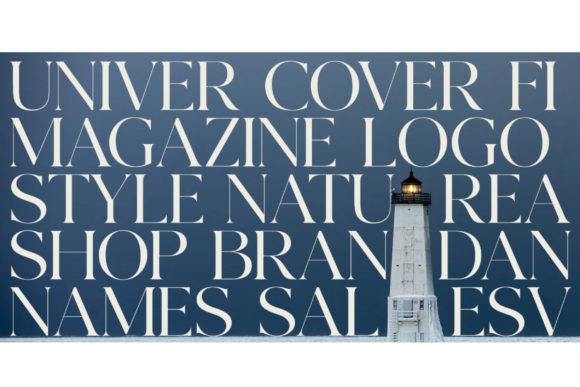
Introducing Agatho Font: The Epitome of Elegance and Sophistication
In the realm of typography, fonts play a pivotal role in conveying messages, evoking emotions, and creating a lasting impression. Among the myriad of fonts available, Agatho Font stands out as a beacon of elegance, sophistication, and versatility. This stunning serif font has been meticulously crafted to cater to a wide range of applications, making it an indispensable asset for designers, artists, and businesses alike.
The Agatho Font: A Symphony of Elegance and Refinement
Agatho Font is a cool, elegant, and thin lettered serif font that exudes refinement and poise. Its slender lines, precise curves, and carefully balanced proportions create a harmonious visual experience that is both soothing and captivating. The font’s elegant appearance makes it an ideal choice for projects that demand a touch of sophistication, such as luxury brand logos, high-end wedding invitations, and upscale signage.
Unleashing the Potential of Agatho Font: Diverse Applications
One of the standout features of Agatho Font is its incredible versatility. Its adaptability makes it suitable for a wide range of applications, including:
- Logos: Create a lasting impression with a bespoke logo that embodies your brand’s values and personality.
- Wedding Invitations: Set the tone for a fairytale-like celebration with exquisite wedding invitations that exude romance and sophistication.
- Headings: Elevate your content with elegant headings that command attention and inspire engagement.
- T-Shirts: Design striking apparel that makes a statement with Agatho Font’s stylish and legible lettering.
- Letterhead: Impress clients and partners with professional letterhead that reflects your brand’s commitment to excellence.
- Signage: Guide, inform, and engage your audience with eye-catching signage that showcases your brand’s personality.
- Labels: Add a touch of elegance to your products, packaging, or marketing materials with stylish labels.
- News: Present news articles, blog posts, or editorials with a font that conveys authority, credibility, and sophistication.
- Posters: Create visually stunning posters that capture attention, convey messages, and leave a lasting impact.
- Badges: Design custom badges that showcase your brand’s identity, values, or achievements with Agatho Font’s distinctive style.
The Benefits of Using Agatho Font
Agatho Font offers numerous benefits that make it an attractive choice for designers, businesses, and individuals:
- Unique Identity: Agatho Font helps create a distinctive visual identity that sets your brand or project apart from the competition.
- Elegance and Sophistication: The font’s refined appearance adds a touch of luxury and sophistication to any project.
- Versatility: Agatho Font’s adaptability makes it suitable for a wide range of applications, from digital media to print materials.
- Legibility: The font’s clear and precise lettering ensures excellent legibility, even at smaller font sizes.
- Customization: Agatho Font can be easily customized to suit your specific needs, ensuring a perfect fit for your project.
Tips for Using Agatho Font Effectively
To maximize the impact of Agatho Font, consider the following tips:
- Pair with Complementary Fonts: Combine Agatho Font with complementary fonts to create a harmonious visual experience.
- Choose Suitable Colors: Select colors that enhance the font’s elegance and sophistication, such as neutral tones or rich jewel tones.
- Experiment with Font Sizes: Play with font sizes to create visual hierarchy and emphasize key messages.
- Pay Attention to Kerning: Adjust kerning to ensure optimal spacing and readability.
Agatho Font is a masterpiece of typography that offers a unique blend of elegance, sophistication, and versatility. Its wide range of applications, combined with its exceptional legibility and customization options, make it an indispensable asset for designers, businesses, and individuals seeking to create a lasting impression. Whether you’re looking to create a stunning logo, elegant wedding invitation, or eye-catching signage, Agatho Font is the perfect choice.